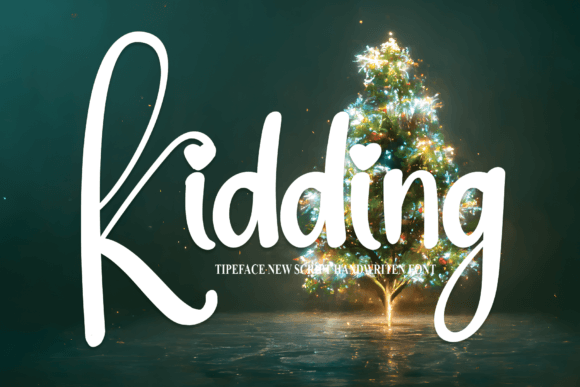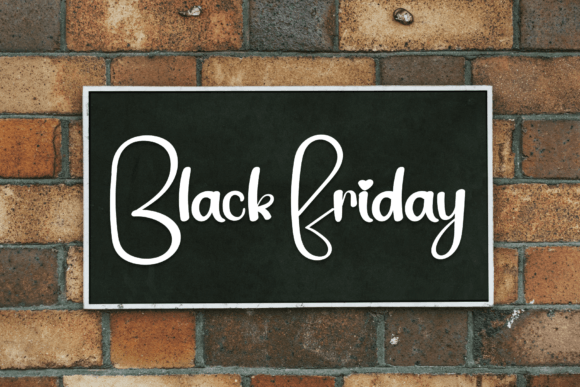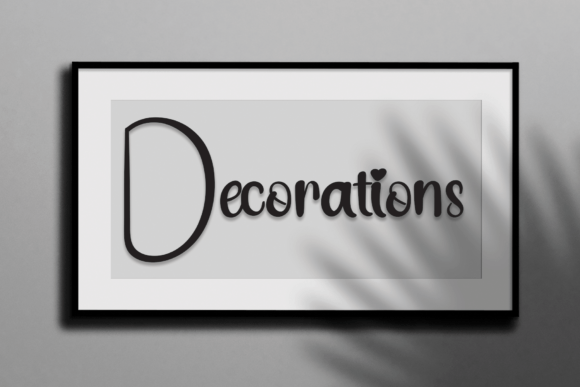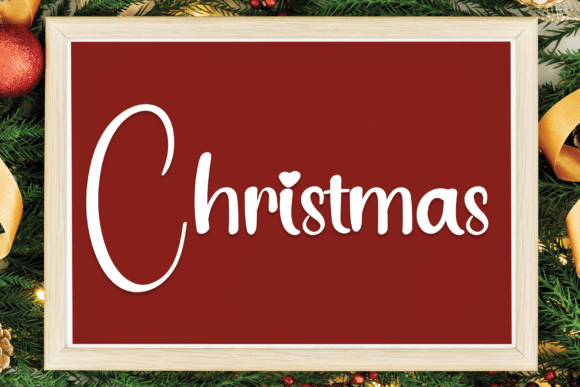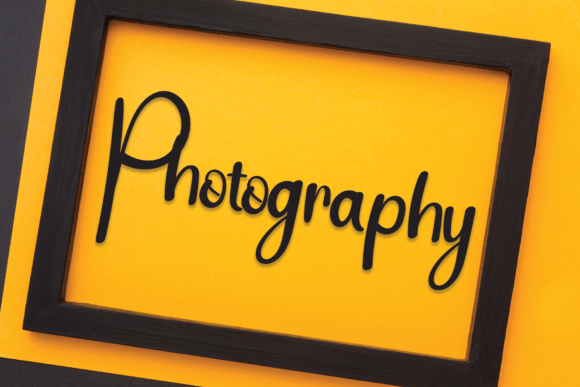
Kidding Font
About Kidding Font
Kidding Font is a sweet and cheerful handwritten typeface that brings a joyful vibe to any design. With its smooth strokes and playful personality, it adds charm and warmth to your creative projects. Even though it’s casual, the font still feels polished enough to use in professional work.
Whether you’re designing wedding invitations, greeting cards, or social media graphics, KiddingFont fits beautifully. In fact, it’s ideal for adding a romantic or personal touch to your work.
Why Designers Love Kidding Font
Not only is KiddingFont fun to use, but it also stands out for its versatility. Because of its clean and consistent style, it works well in both print and digital formats. Moreover, its rounded edges make it easy to read while keeping things playful and light.
Some of its best qualities include:
• Cute, flowing character design
• Clear readability on various backgrounds
• Great for both casual and professional uses
• Ideal for minimalist or detailed layouts
Perfect for a Range of Creative Projects
Thanks to its well-balanced form and friendly appearance, KiddingFont is suitable for:
• Wedding invitations and save-the-dates
• Greeting cards for any occasion
• Craft projects and printable wall art
• Logo designs for soft, approachable brands
• Instagram posts, quotes, and lifestyle content
Even if your design needs a touch of whimsy, Kidding Font has you covered.